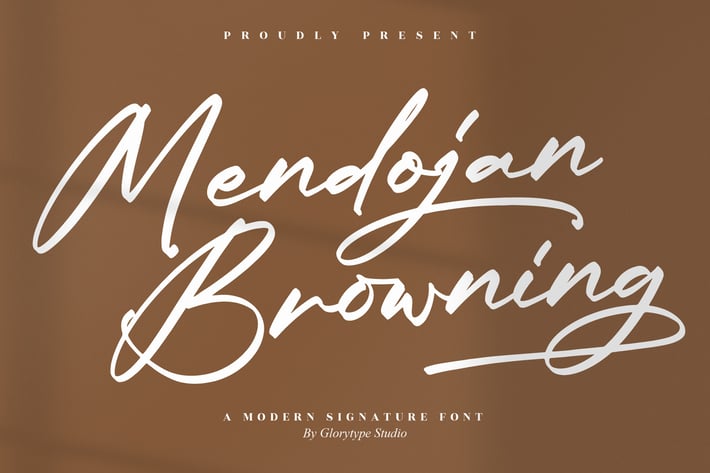
Mendojan Browning Signature Font
Mendojan Browning is a modern signature script that blends smooth, natural strokes with refined contrast—perfect when you want handwritten warmth without losing professional polish. Its flowing baseline, tasteful swashes, and well-spaced letterforms make headlines feel personal, logos feel bespoke, and small text remain clean and legible across print and digital.
+ Uppercase & lowercase characters
+ Numerals & punctuation
+ Stylistic alternates & swashes
+ Natural ligatures for authentic handwriting flow
+ Multilingual support
+ Optimized kerning & clean curves